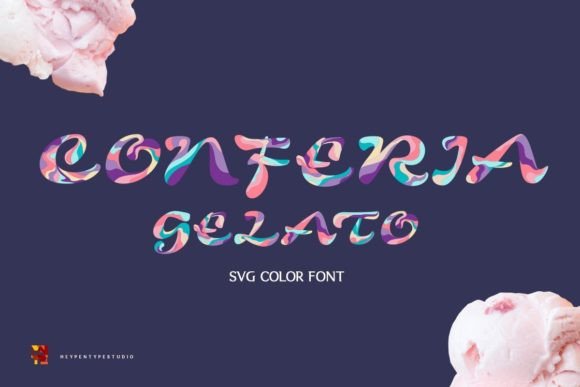
Introducing Conferia Gelato - a font collection that celebrates the essence of joy, summer, and creativity.
Dive into a world of vibrant, colorful fonts that evoke the memories of summer days and the sweet taste of gelato. Each letter is a burst of personality, hand-crafted to bring your designs to life.
With Conferia Gelato, your creativity knows no bounds. Say goodbye to boring, monotonous fonts and embrace a world of endless possibilities. Make a statement with posters that pop, create packaging that captivates, or design merchandise that sizzles.
The bouncy brushstrokes of Conferia Gelato give your designs a delightful vintage charm, adding a touch of nostalgia and whimsy. Imagine your logo adorned with these colorful letters, creating an instant connection with your audience.
But wait, there's more! Conferia Gelato is not just another font collection. It's a gateway to a world of imagination and inspiration.
Design posters that transport your viewers to a summer carnival, filled with laughter, cotton candy, and the thrill of the Ferris wheel. Create merchandise that captures the essence of a beach day, with waves crashing against the shore and the smell of sunscreen in the air.
With Conferia Gelato, your designs will be the talk of the town. Your customers will fall in love with the vibrant colors, the playful shapes, and the sheer joy that radiates from every letter.
So, unleash your creativity and let Conferia Gelato take you on a journey of color and delight. Download now and experience the magic of summer, one font at a time.